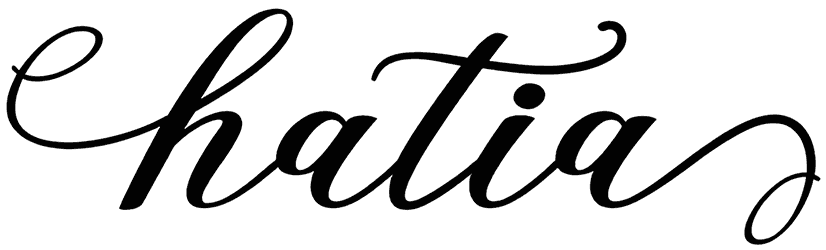
Hatia Script Font
Hatia Script is a stunning script font that catches your eye at first glance. This attractive font has a playful design and can be helpful in several situations.
For instance, you may use it on magazine covers, flyers, and brochures. This love font’s letters have a semi-curvy shape with soft edges, making them memorable. Moreover, their thin tails create a pleasant feeling, so give it a try and express your ideas.